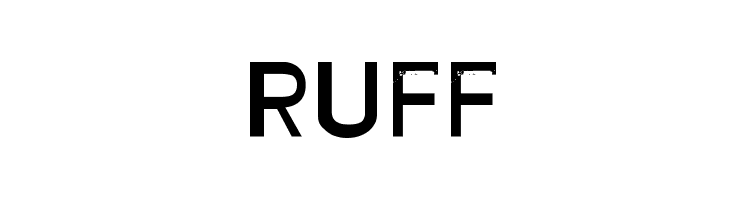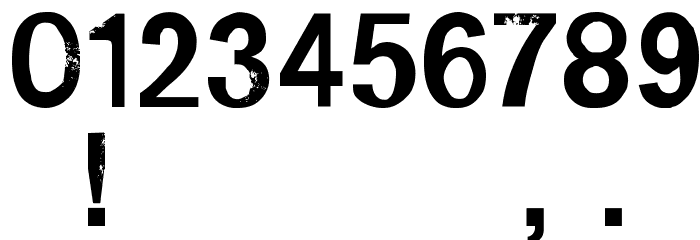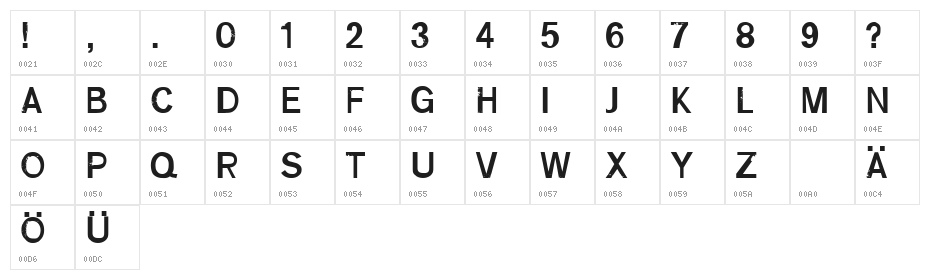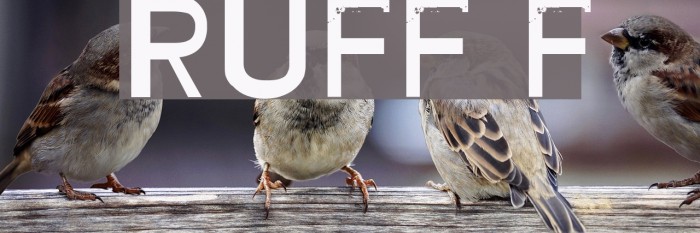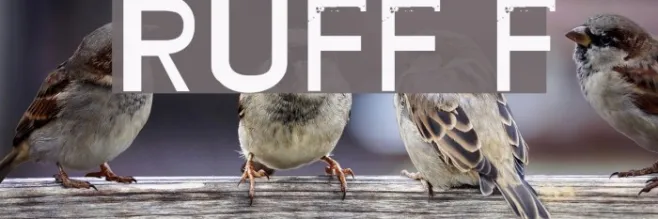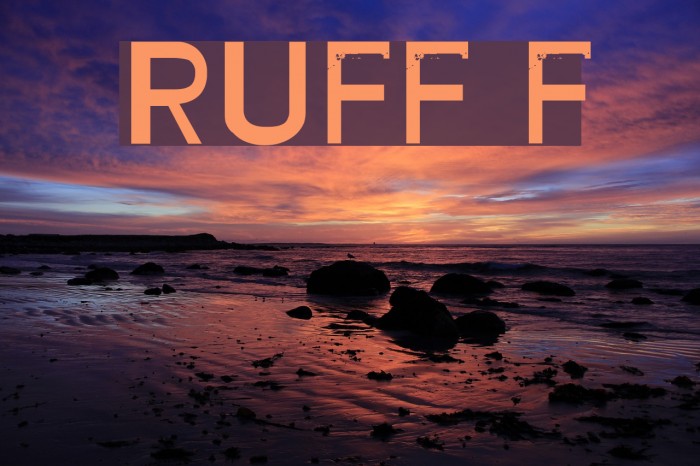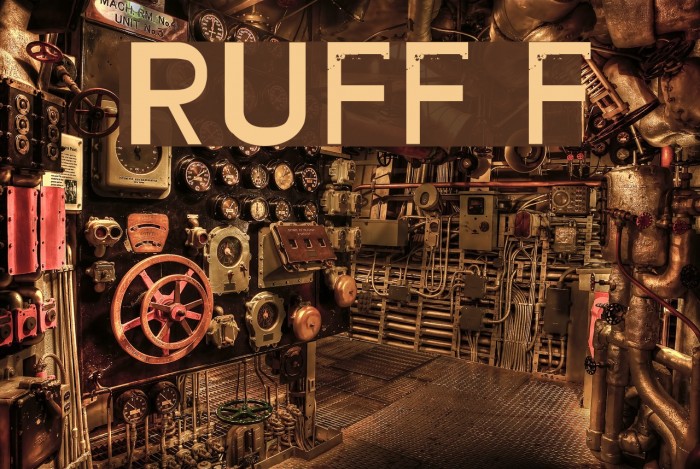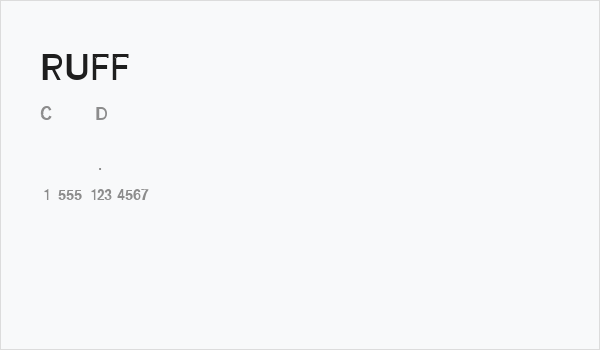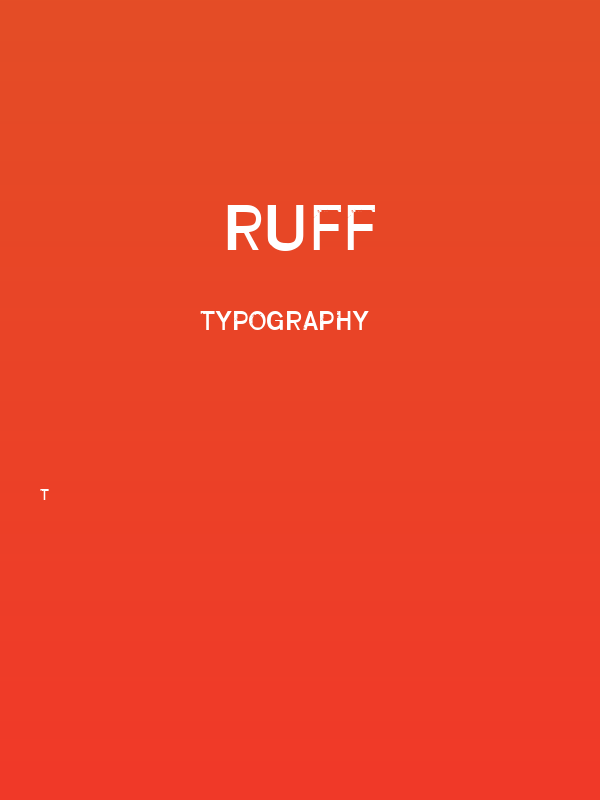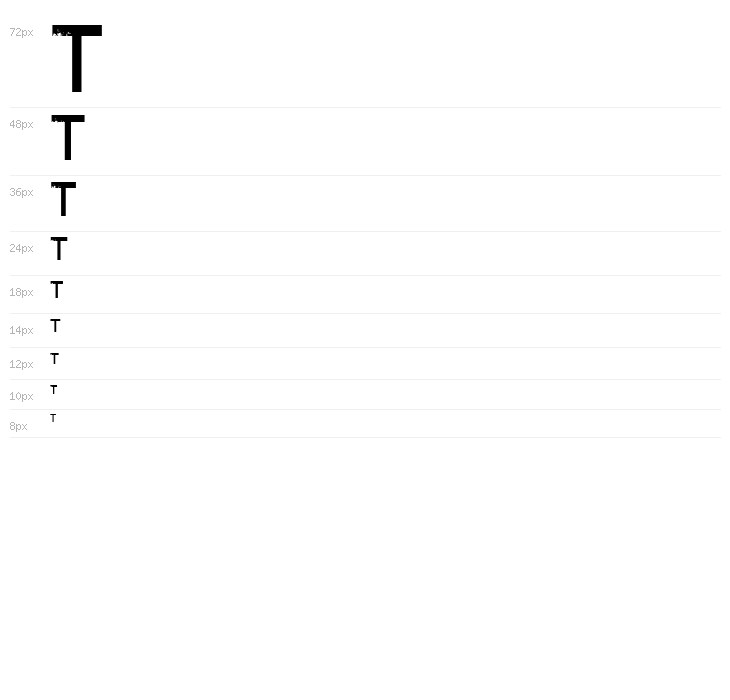
RUFF Font
RUFF Description
This font features a bold and distressed style, characterized by its rough, textured appearance that gives it a vintage and worn-out look. The uppercase letters are prominent and sturdy, while the numbers and special characters maintain the same rugged aesthetic. The font's design is reminiscent of old printing techniques, where ink might have been unevenly distributed, resulting in a unique, imperfect finish. This adds a sense of authenticity and character, making it ideal for projects that require a touch of nostalgia or a gritty, urban feel.